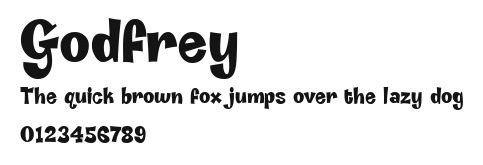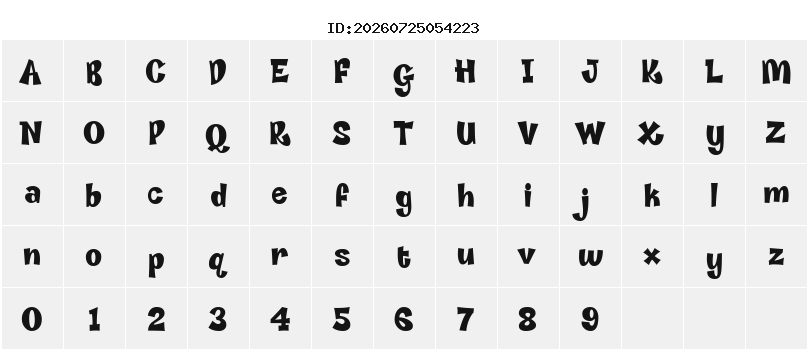
• Font Name: Godfrey
• Full Font Name: Godfrey
About Godfrey.ttf
Godfrey.ttf is a modern, elegant sans-serif font designed for ultimate readability and visual harmony. Perfect for branding, headlines, web design, and print materials.